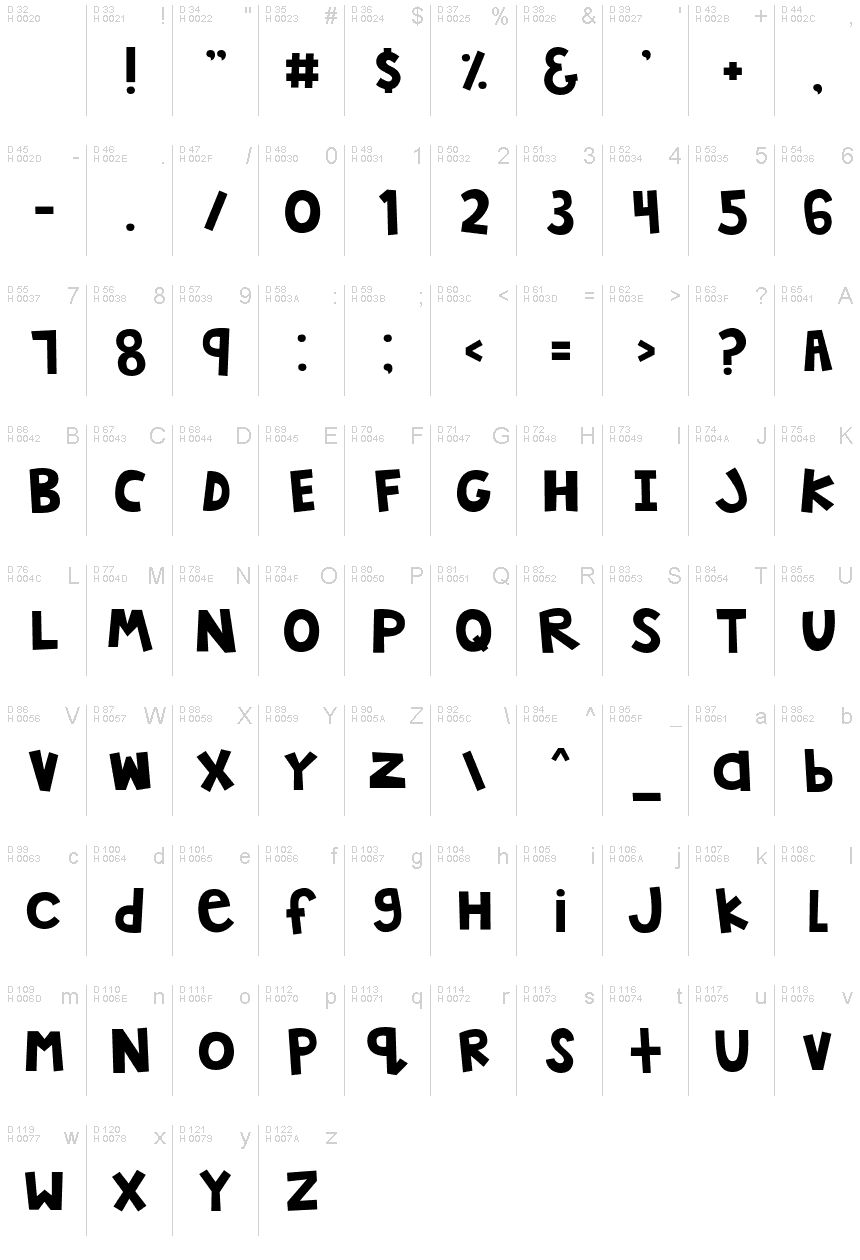
MTF Jumpin' Jack Regular
MTF Jumpin' Jack, crafted by the talented Miss Tiina Fonts, is a bold display font that adds a touch of playful charm to any project. With its whimsical cartoon style, this font is perfect for children's books, animated films, and educational materials. From catchy headlines to eye-catching logos, MTF Jumpin' Jack injects life into your designs. Its bold weight provides impact and ensures legibility even at smaller sizes. Whether you're creating vibrant posters or designing captivating websites, let MTF Jumpin' Jack bring your imagination to life with its delightful cartoonish flair.